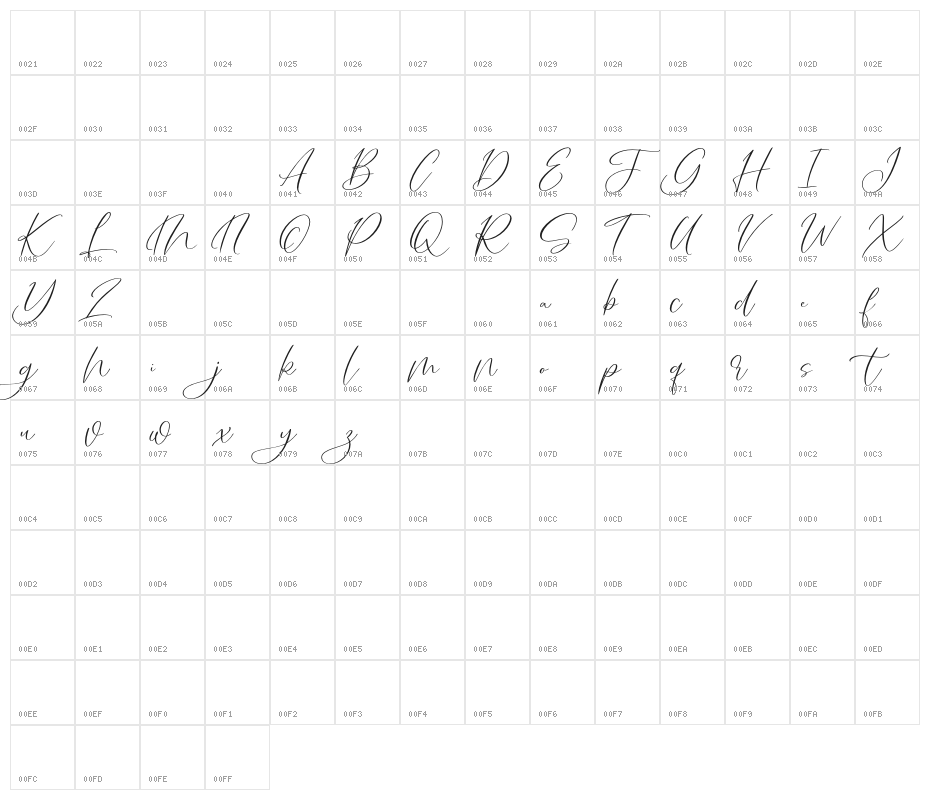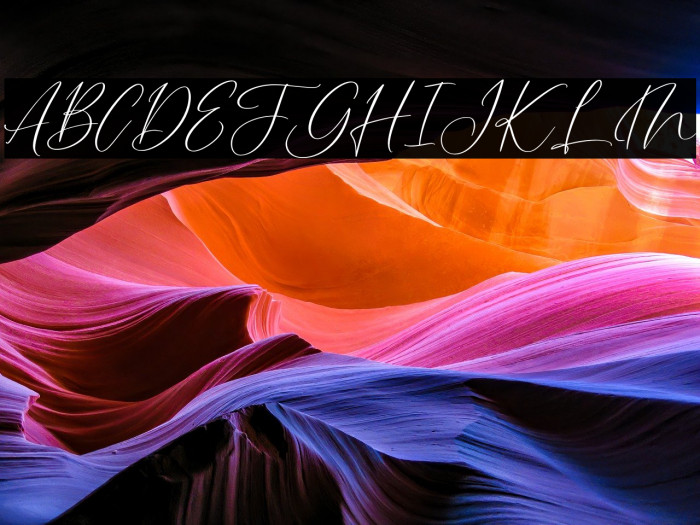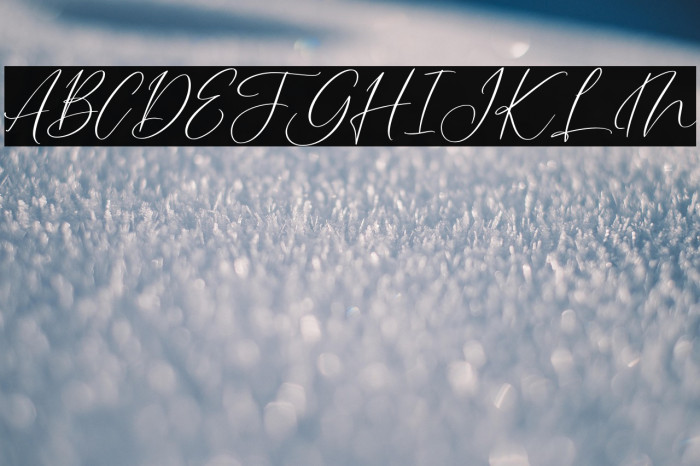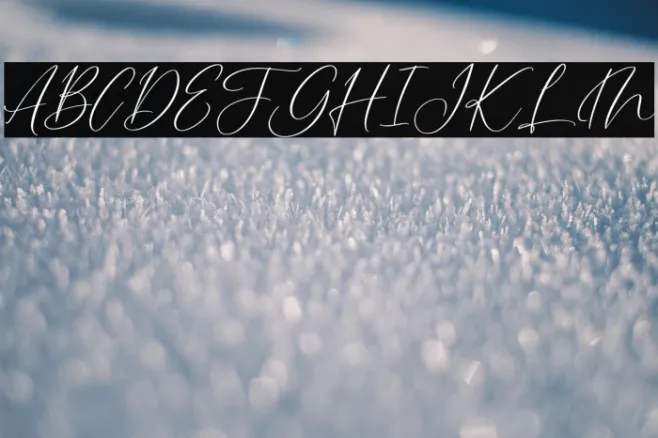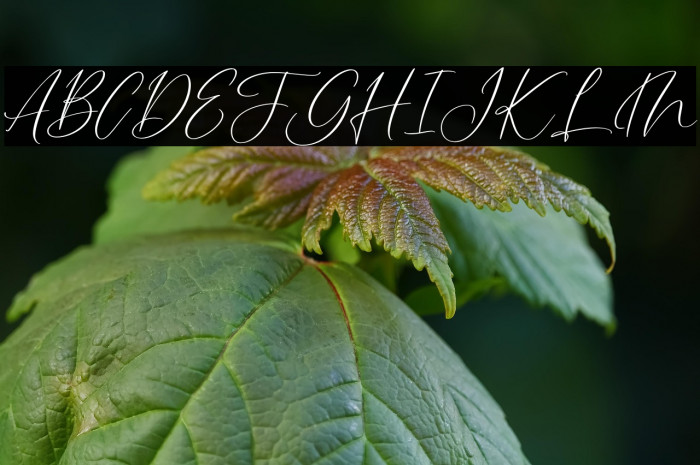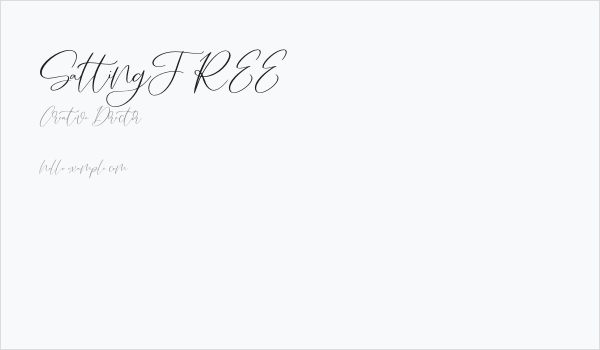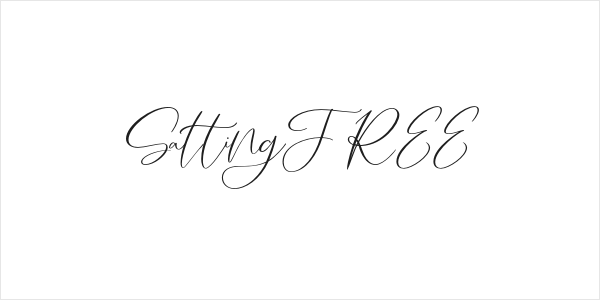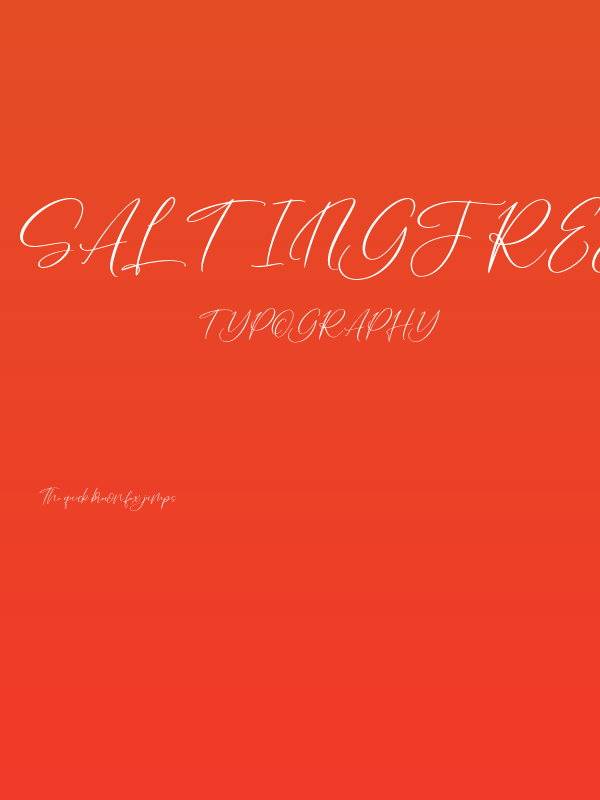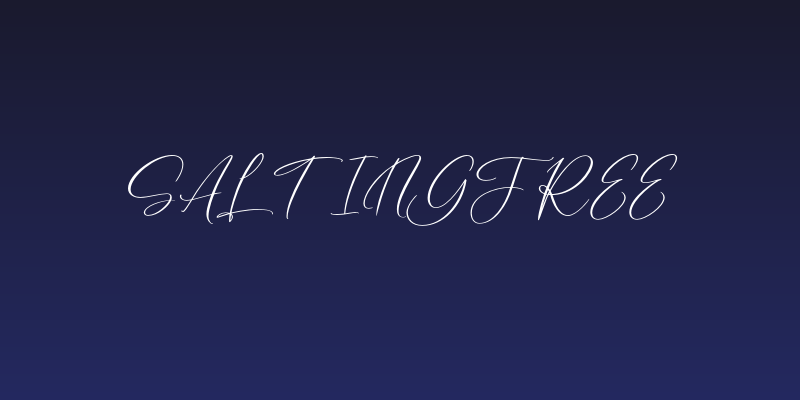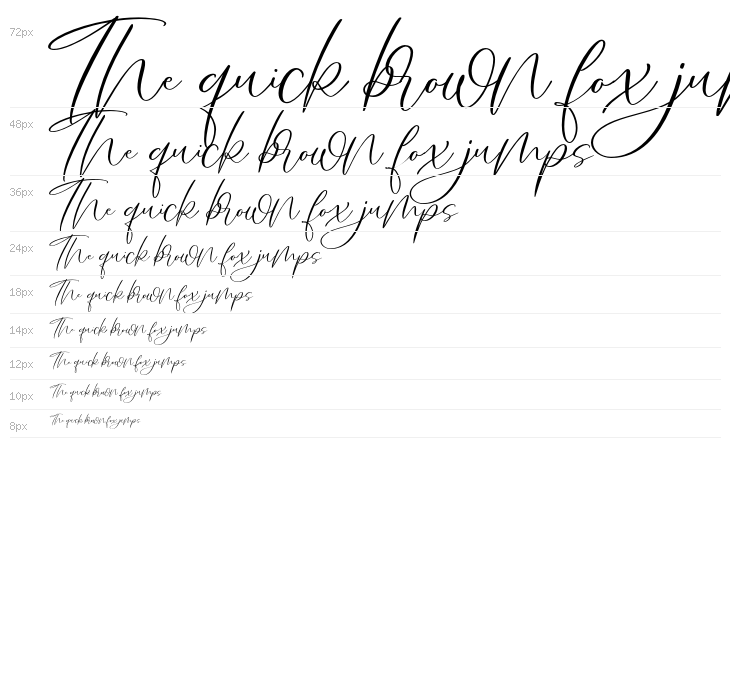
SaltingFREE Font
SaltingFREE Description
This elegant script font features flowing, interconnected letters with a graceful and sophisticated appearance. The uppercase letters are tall and slender, with sweeping curves and delicate loops that create a sense of fluidity and motion. The lowercase letters maintain a consistent style, with smooth transitions and a slightly more compact form. The numbers and special characters are designed to complement the overall aesthetic, with similar curves and loops. This font exudes a sense of elegance and refinement, making it ideal for formal invitations, branding, and other projects that require a touch of sophistication.